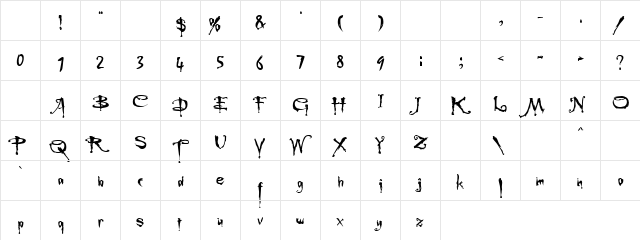
Complete Buzzard Thread Regular glyph index. Displaying only characters natively supported by Buzzard Thread Regular font.
Buzzard Thread is a composed and adaptable typeface that performs quietly and consistently across a wide range of design contexts.